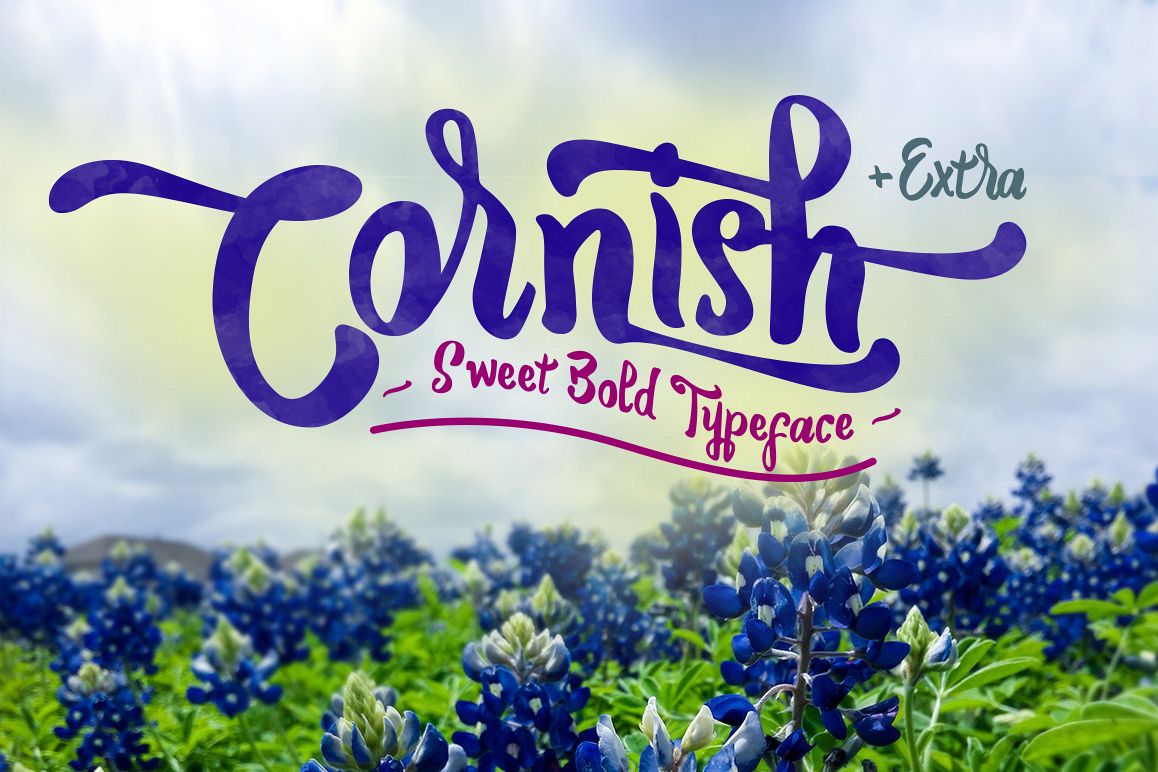
Cornish + Extra
Cornish-Regular
Cornish is a Sweet Bold Typeface. It was designed as a display typeface that contains 300 glyphs in total and 131 alternative characters to improve your design. You can use it as a logo, badge, insignia, packaging, headline, poster, t-shirt/apparel, greeting card, and wedding invitation. The flowing characters are ideal to make an attractive messages, mix and match Cornish with a bunch of alternative characters to fit your project.
Dirtyline Studio
Cornish + Extra
By Dirtyline Studio